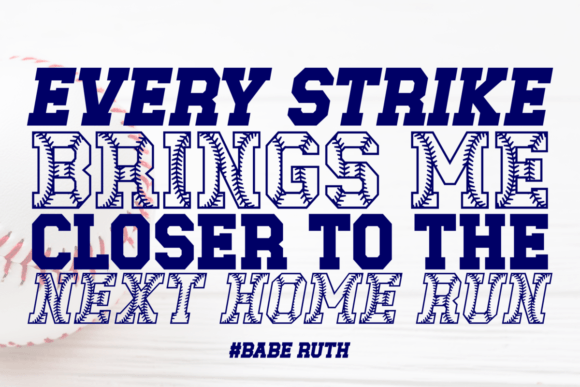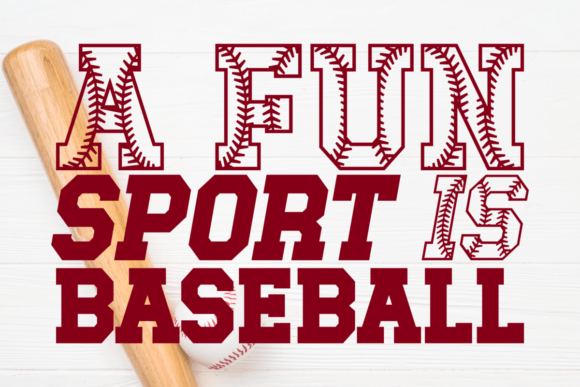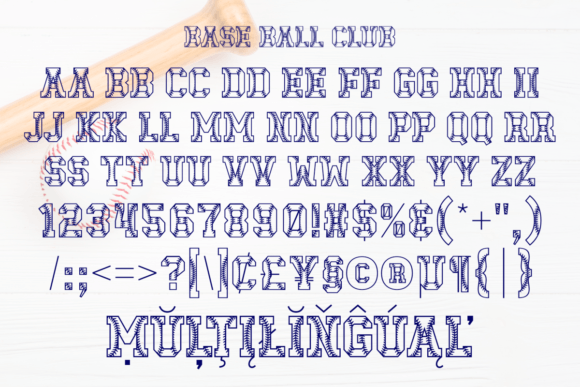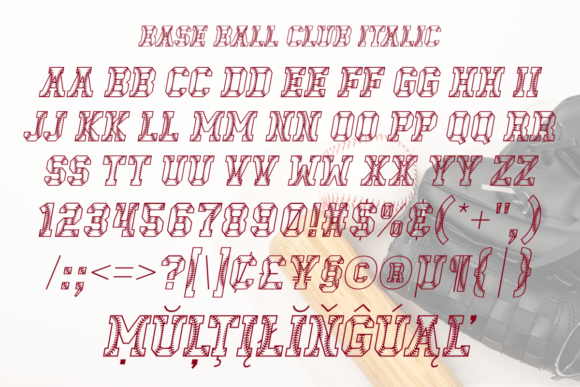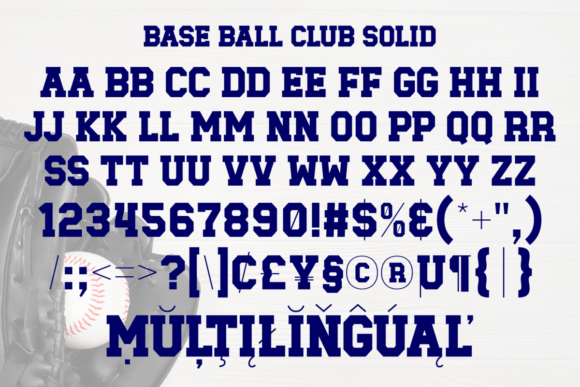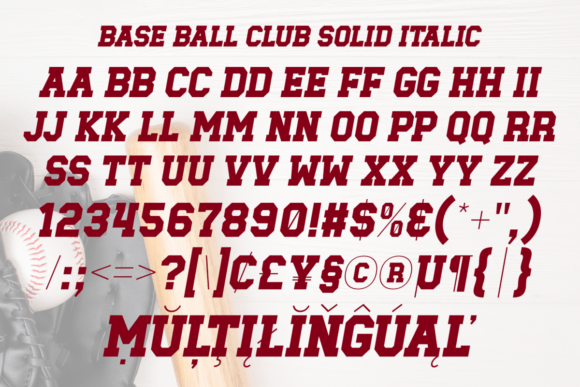
Introducing Baseball Club Font: The Perfect Addition to Your Baseball-Themed Designs
Are you a designer or crafter looking for a unique and charming font to add to your baseball-themed projects? Look no further than the Baseball Club Font! This decorative font family includes four versions, each designed to bring a touch of baseball charm to your designs. In this article, we’ll explore the features and benefits of the Baseball Club Font, and show you how to make the most of this versatile and engaging font.
What is Baseball Club Font?
Baseball Club Font is a decorative font family specifically designed for baseball-themed projects. With four different versions to choose from, you’re sure to find the perfect fit for your design needs. Whether you’re creating baseball uniforms and shirts, competition posters, flyers, banners, or web graphics, this font is the ideal choice.
Key Features of Baseball Club Font
- Four unique versions: The Baseball Club Font family includes four different versions, giving you plenty of options to choose from to suit your design needs.
- Decorative and charming: The font features a decorative and charming design that’s perfect for adding a touch of baseball flair to your projects.
- High-quality design: The font is designed with high-quality craftsmanship in mind, ensuring that your designs look professional and polished.
- Versatile: The Baseball Club Font is versatile and can be used for a wide range of projects, from baseball uniforms and shirts to competition posters, flyers, banners, and web graphics.
Benefits of Using Baseball Club Font
So why choose the Baseball Club Font for your baseball-themed projects? Here are just a few benefits of using this font:
- Adds a touch of charm: The Baseball Club Font adds a touch of charm and character to your designs, setting them apart from more generic fonts.
- Increases engagement: The unique and decorative design of the font is sure to grab attention and increase engagement with your audience.
- Perfect for baseball-themed projects: The font is specifically designed for baseball-themed projects, making it the perfect choice for designers and crafters who want to create authentic and engaging designs.
Ideas for Using Baseball Club Font
- Baseball uniforms and shirts: Use the font to create custom baseball uniforms and shirts that are sure to stand out.
- Competition posters: Create eye-catching competition posters that feature the Baseball Club Font.
- Flyers: Use the font to create flyers for baseball events, tournaments, and more.
- Banners: Create banners that feature the Baseball Club Font and showcase your team’s name or logo.
- Web graphics: Use the font to create web graphics, such as social media graphics, that feature a baseball theme.
Tips for Getting the Most Out of Baseball Club Font
To get the most out of the Baseball Club Font, here are a few tips to keep in mind:
- Experiment with different versions: Try out different versions of the font to see which one works best for your project.
- Pair with other fonts: Experiment with pairing the Baseball Club Font with other fonts to create a unique and eye-catching design.
- Use in combination with images: Use the font in combination with images, such as baseball graphics or photographs, to create a visually appealing design.
| Font Name | Baseball Club Font |
| Author | Rizkky (7NTypes) |
The Baseball Club Font is a versatile and engaging font that’s perfect for designers and crafters who want to add a touch of baseball charm to their projects. With four unique versions to choose from, this font family is sure to meet your design needs. Whether you’re creating baseball uniforms and shirts, competition posters, flyers, banners, or web graphics, the Baseball Club Font is the ideal choice. So why wait? Download the Baseball Club Font today and start creating your own baseball-themed designs!